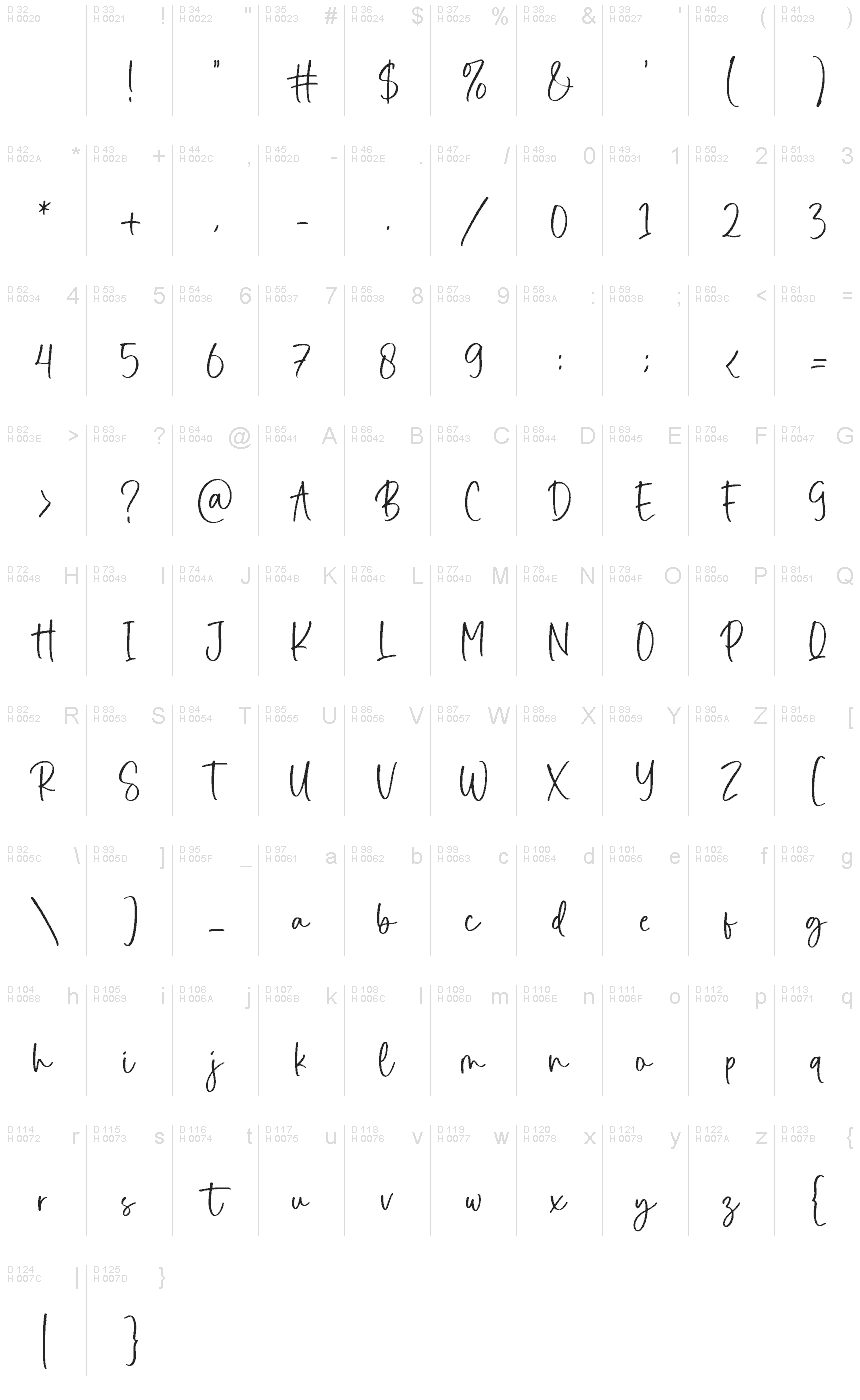
Whitestar
Whitestar font is a handwritten font by Balpirick Studio with an expressive, appealing design. It features modern script styles with smooth lines and relaxed strokes. The flowing and vivid visual style of the letters gives each word originality and super eye-catching looks.
Use Whitestar in designing casual invitations, elegant labels, one-of-a-kind logos, decorative business cards or restaurant menus. Other equally interesting uses include greeting cards for various occasions, photography posters, advertising banners etc.